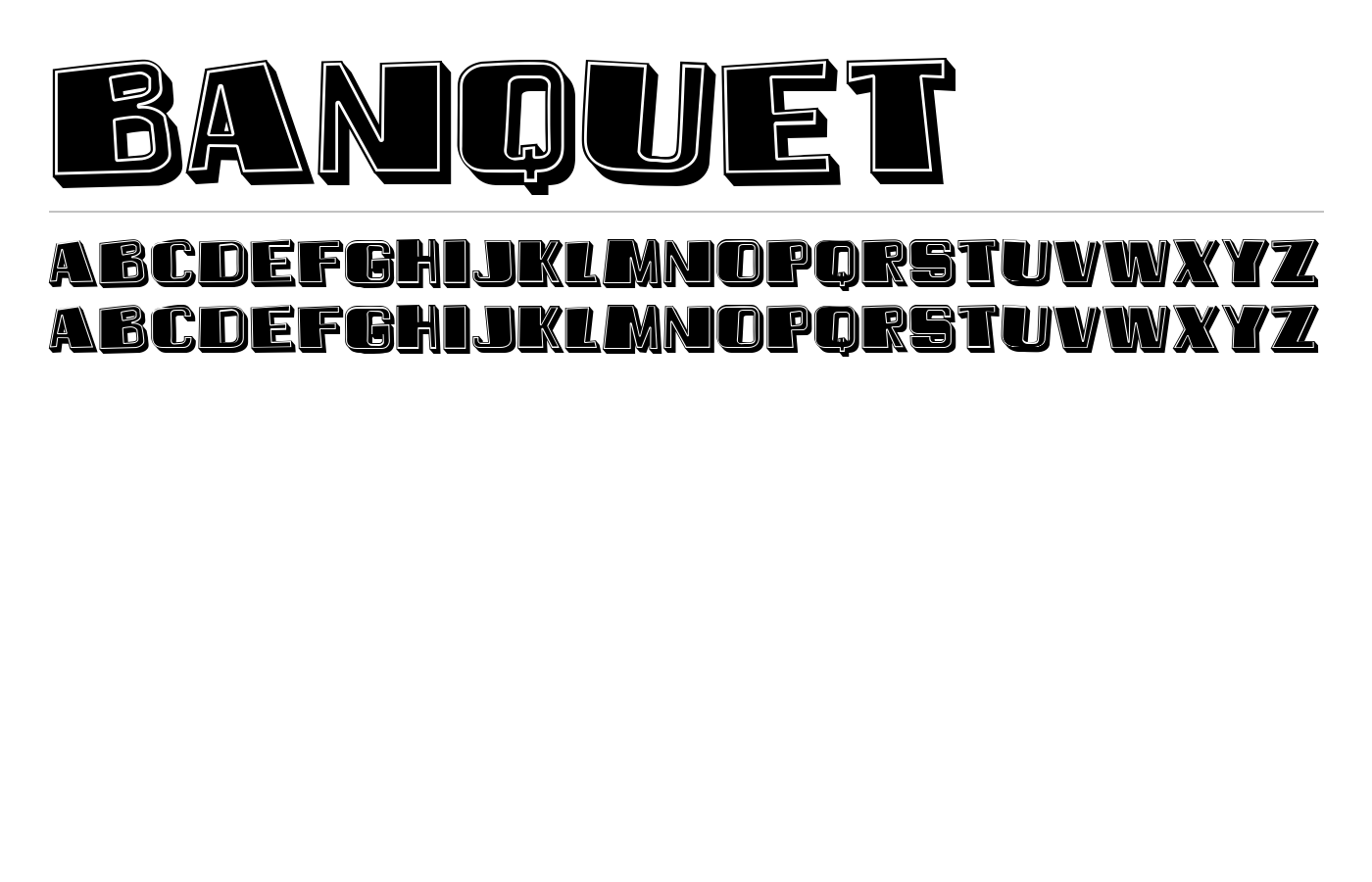
Banquet is a bold and playful display sans serif font with a strong, slightly condensed structure and a distinctive shadow effect that adds depth and character. Its uppercase letterforms are chunky and geometric with subtle irregularities, giving it a vintage yet energetic feel, perfect for headlines, posters, and branding that want to stand out with personality and a retro vibe. This font works best where impact and fun are needed, making it ideal for eye-catching logos, packaging, and event promotions.
Banquet Font
About Banquet Font